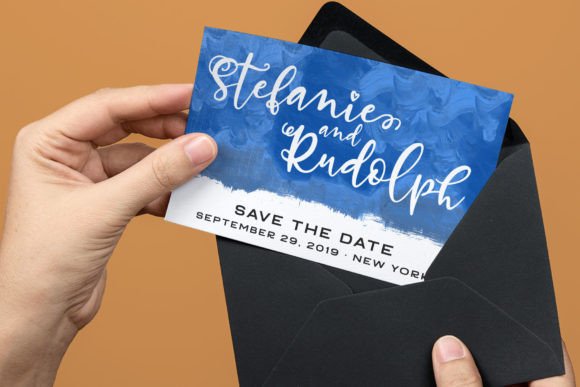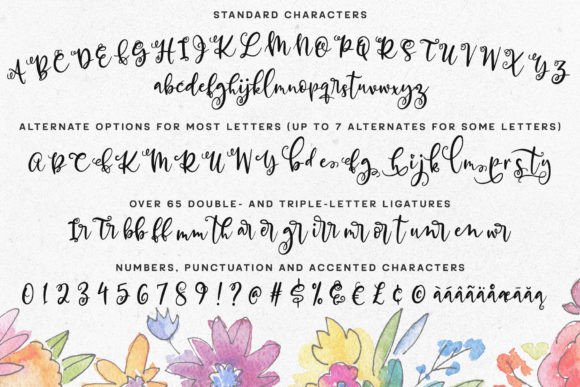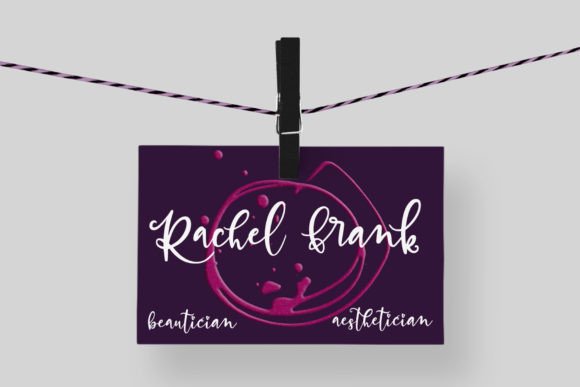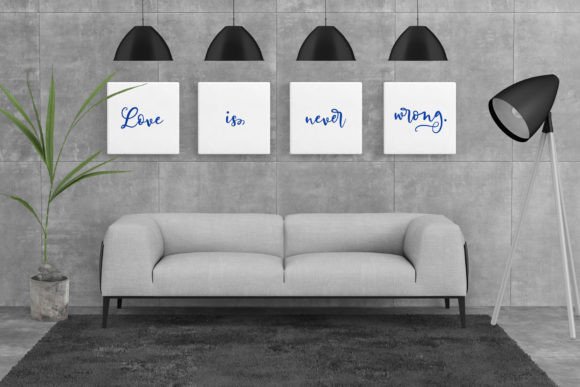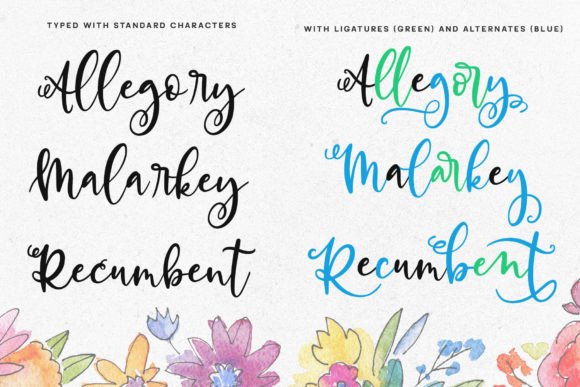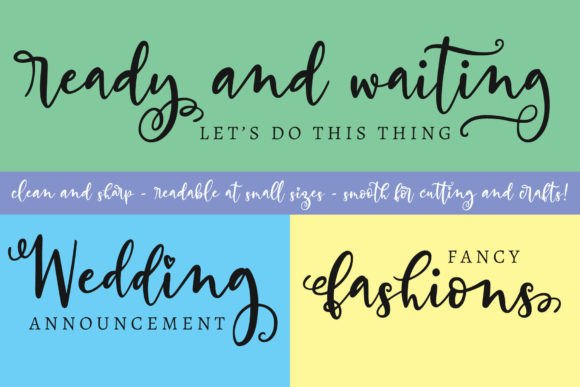
Introducing Allegory Font: Elevate Your Designs with Elegant Hand-Lettering
Are you ready to take your designs to the next level with a unique and elegant hand-lettered font? Look no further than Allegory Font, the latest creation from [Your Name]. Building on the success of the United Scripts font, Allegory offers a fresh and exciting way to add personality and style to your projects.
The Story Behind Allegory Font
A while back, [Your Name] released United Scripts, a revolutionary font that replaced each keyboard key with the full hand-lettered name of a U.S. state. The response was overwhelming, with many designers and crafters asking if a font featuring the same style of lettering was available or in development. The answer is now a resounding yes! Allegory Font is here, and it’s packed with features that will make your designs shine.
What is Allegory Font?
Allegory Font is a hand-lettered font created with the same brush as United Scripts, ensuring a consistent style and bounce throughout. The base alphabet is fun and playful, but that’s not all – Allegory also includes over 65 ligatures and over 100 alternate letters to add variety and flourish to your designs. With PUA-encoding for easy access, you can effortlessly incorporate Allegory into your workflow.
Key Features of Allegory Font
• Over 65 ligature sets for smooth letter connections, coded to standard ligatures for seamless integration.
• Over 100 alternates for variety, coded to stylistic set 01 through stylistic set 10, giving you endless options for creative expression.
• PUA-encoding for super easy access to all the font’s features, making it simple to use and navigate.
Why Choose Allegory Font?
So, what sets Allegory Font apart from other fonts on the market? Here are just a few reasons why designers and crafters are going to love Allegory:
• Unique and elegant style: Allegory’s hand-lettered approach gives your designs a distinctive, high-end feel that’s sure to impress.
• Versatility: With over 65 ligatures and 100 alternate letters, you can create a wide range of designs, from elegant and sophisticated to playful and whimsical.
• Ease of use: PUA-encoding makes it easy to access all the font’s features, so you can focus on creating, not struggling with complicated font menus.
Allegory Font is the perfect addition to any designer’s or crafter’s toolkit. Whether you’re working on:
• Branding and packaging: Add a touch of elegance and sophistication to your brand identities and packaging designs.
• Stationery and invitations: Create beautiful, one-of-a-kind stationery and invitations that will leave a lasting impression.
• Digital designs: Use Allegory to add a personal touch to your digital designs, from social media graphics to website headers.
In conclusion, Allegory Font is an exceptional hand-lettered font that offers a unique and elegant way to elevate your designs. With its smooth ligatures, varied alternates, and PUA-encoding, Allegory is the perfect choice for designers and crafters looking to add a touch of personality and style to their projects. Don’t miss out on the opportunity to take your designs to the next level with Allegory Font.